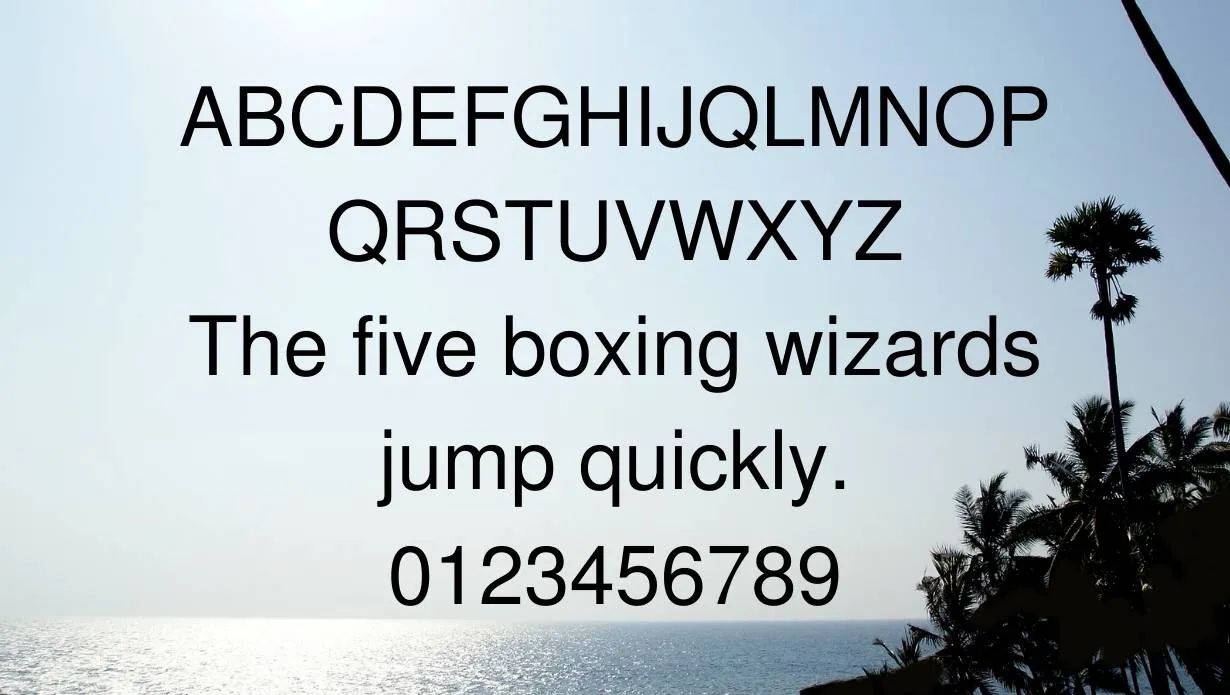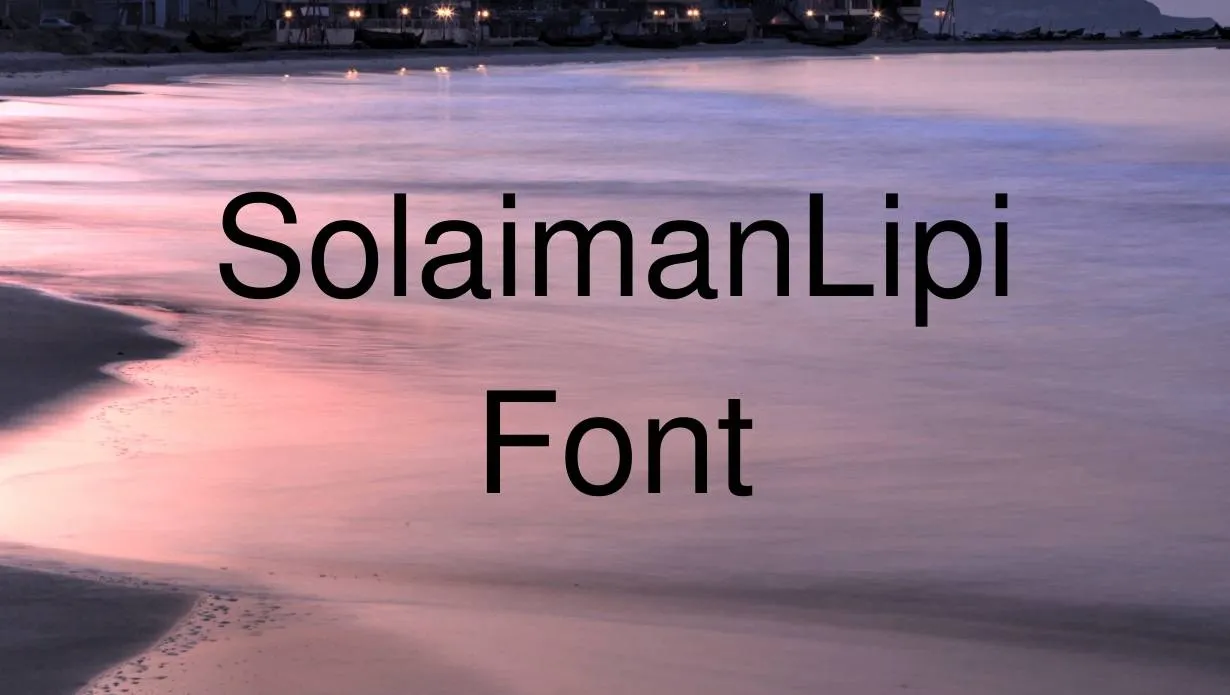
About SolaimanLipi Font
SolaimanLipi is the definitive and most widely used Bangla (Bengali) digital typeface, officially adopted by the Government of Bangladesh. Designed with exceptional clarity and modern proportions, it resolved long-standing legibility issues in earlier Bangla fonts, especially on screens. Its clean, open forms and balanced glyphs set a new standard for readability in both print and digital interfaces. As the default font for government communications, education, and major news publications, it plays a crucial role in the daily literacy and administration of millions of people.